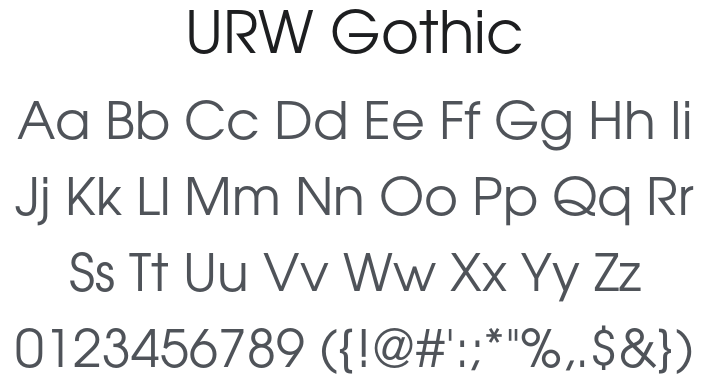
URW Gothic Font Family
About URW Gothic
URW Gothic is a geometric sans-serif typeface from URW++ included in the URW Base35 open-source font package, a set of 35 fonts metrically compatible with the PostScript Level 2 core font set. It serves as a free alternative to ITC Avant Garde Gothic, capturing the same precise circular geometry and modernist aesthetic associated with 1970s graphic design, making it a strong choice for logos, posters, and contemporary display use.